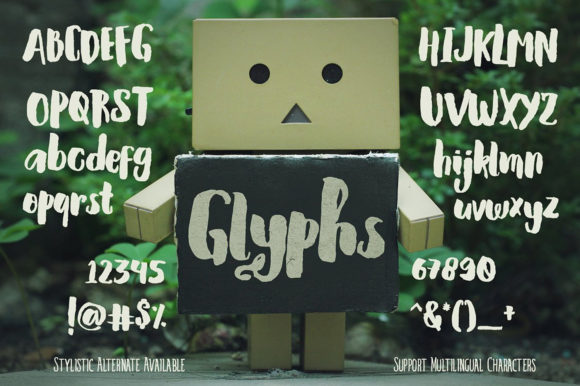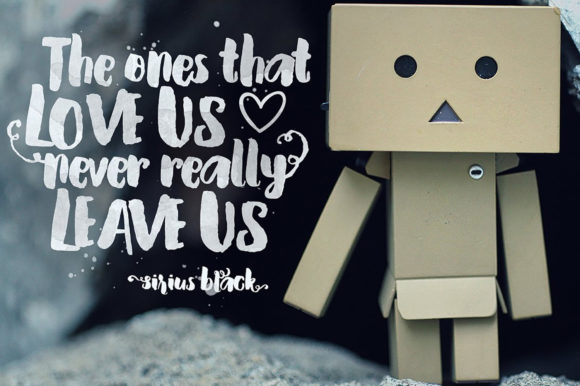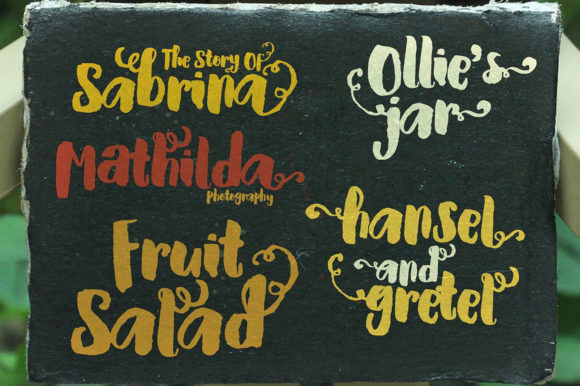
About Elska Font
Elska is a chic, gorgeous and thick lettered handwritten font. Featuring characters that dance along the baseline, this font will add a luxury spark to any design project that you wish to create!